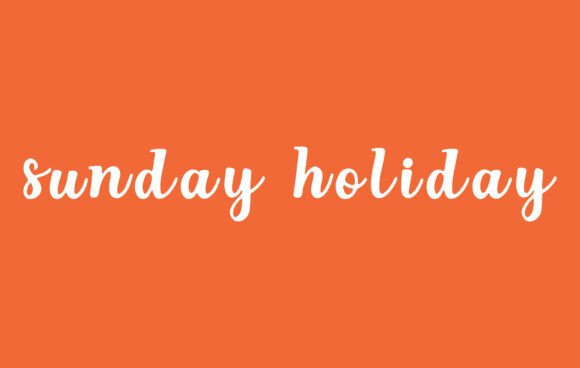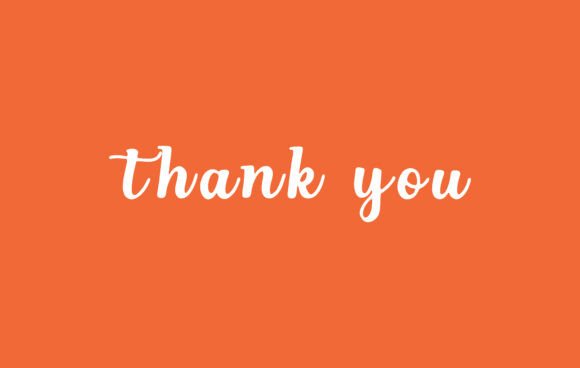
Discover the Charm of Amira Font: Elevate Your Designs with a Romantic Touch
In the world of typography, a well-crafted font can make all the difference in bringing your creative visions to life. If you’re on the hunt for a typeface that exudes warmth, elegance, and a touch of romance, look no further than Amira Font. This beautifully designed handwritten font is poised to become your new favorite, offering a perfect blend of legibility, versatility, and aesthetic appeal.
The Essence of Amira Font
Amira Font is an authentic handwritten font that captures the essence of personal, heartfelt communication. Its romantic touch is instantly captivating, making it an ideal choice for designers and crafters looking to infuse their projects with a sense of warmth and personality. Whether you’re working on a wedding invitation, a social media campaign, or a branding project, Amira Font is sure to leave a lasting impression.
Key Features of Amira Font
- Legibility: One of the standout features of Amira Font is its exceptional legibility. This ensures that your message is conveyed clearly, whether you’re using it for title text or body copy.
- Versatility: Amira Font is incredibly versatile, making it suitable for a wide range of design applications. From magazine headlines and social media posts to branding materials, wedding invitations, and greeting cards, this font adapts seamlessly to any project.
- Authentic Handwritten Feel: The font’s authentic handwritten feel adds a personal touch to your designs, setting them apart from more generic, computer-generated typefaces.
- Romantic Aesthetic: The romantic aesthetic of Amira Font makes it particularly well-suited for designs that require a touch of elegance and sophistication.
Design Applications for Amira Font
The possibilities are endless when it comes to using Amira Font in your designs. Here are a few ideas to get you started:
- Wedding Invitations and Stationery: Add a touch of romance and whimsy to your wedding invitations, save-the-dates, and stationery with Amira Font.
- Social Media Graphics: Elevate your social media presence with eye-catching graphics that showcase Amira Font’s unique charm.
- Branding and Packaging: Use Amira Font to create a distinctive brand identity that resonates with your audience and sets your brand apart.
- Magazine Headlines and Articles: Add a personal touch to your magazine layouts with Amira Font, perfect for headlines, subheadings, or body text.
- Cards and Greeting: Create heartfelt greeting cards and invitations for special occasions, such as birthdays, anniversaries, and holidays.
Why Choose Amira Font?
In a sea of digital fonts, Amira Font stands out for its unique blend of elegance, legibility, and personal charm. By choosing Amira Font, you’re not just selecting a typeface – you’re embracing a design approach that prioritizes warmth, authenticity, and connection.
Whether you’re a professional designer or a crafter looking to add a personal touch to your projects, Amira Font is an excellent addition to your typographic toolkit. Its versatility, aesthetic appeal, and romantic charm make it the perfect choice for anyone looking to elevate their designs and create a lasting impression.
Amira Font is more than just a font – it’s a design companion that can help you bring your creative ideas to life. With its authentic handwritten feel, romantic aesthetic, and exceptional legibility, this font is poised to become a favorite among designers and crafters alike. So why wait? Discover the charm of Amira Font today and take your designs to new heights.